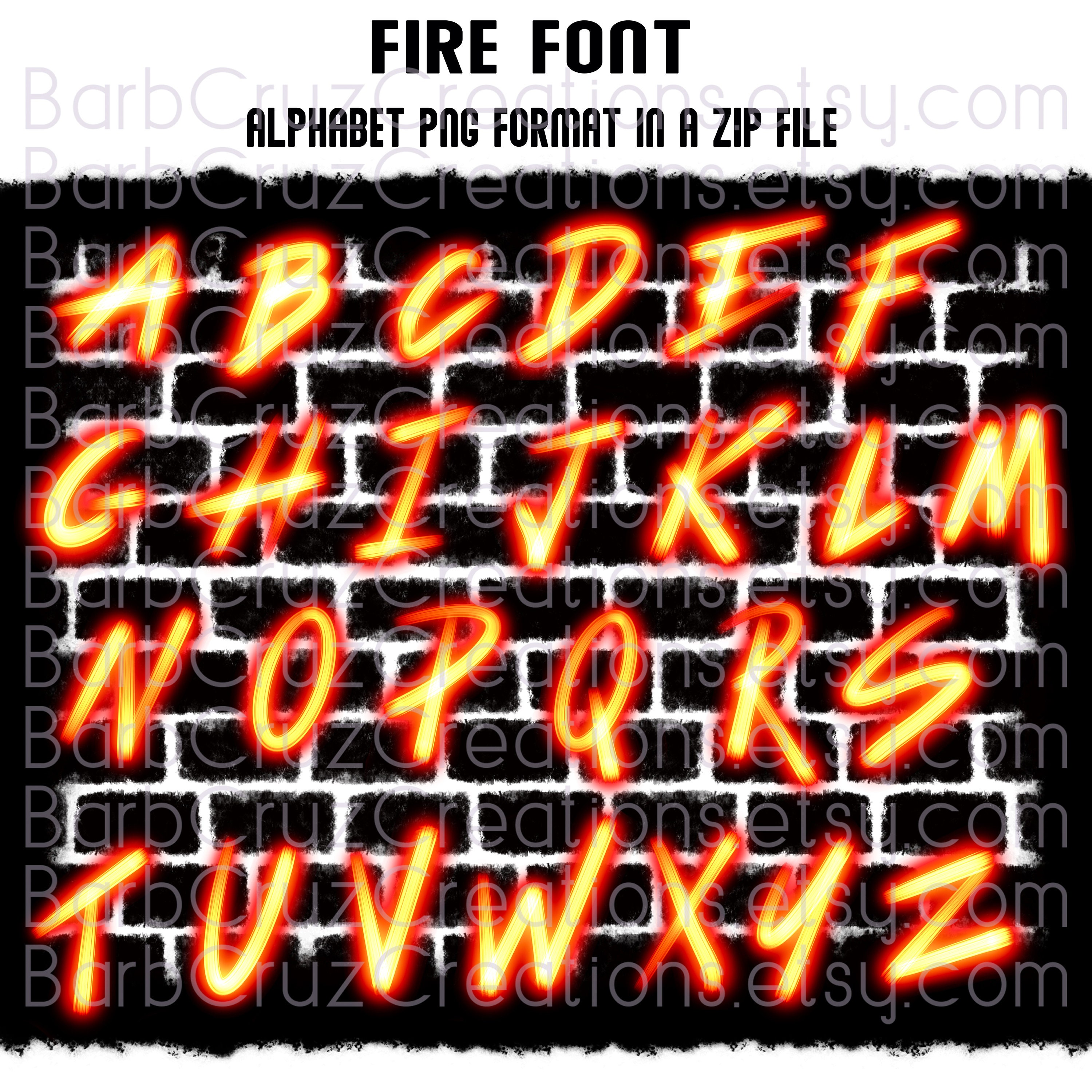
Fire Font Flames, Hot Fire, Fire Letters, Upper Case Graffiti, Lettering, Airbrush Font, Sublimation Design, Digital Download, zip file, png
Add to a background use for airbrush monogram, a personal message, name, image to make custom
Watercolor & Airbrush Images are transparent in some spots and can be layered to achieve darker or brighter images. Use your copy and paste feature for desired brightness.